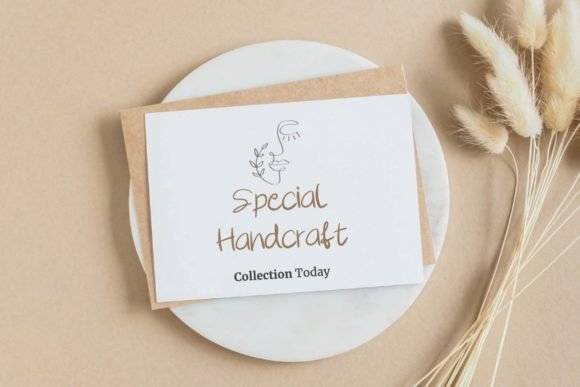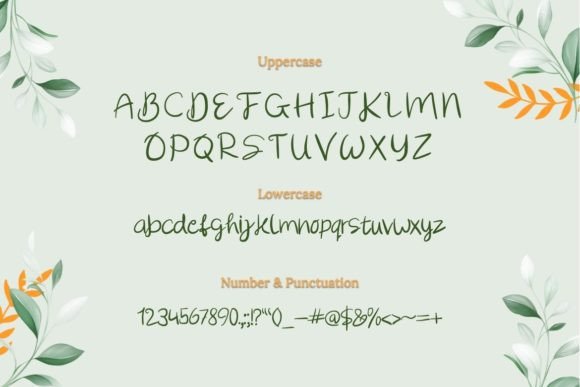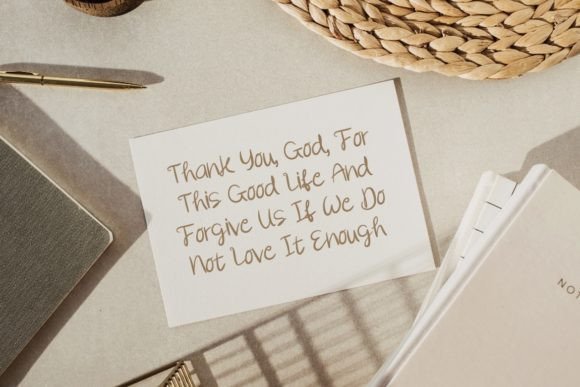
Happeiday Font: Elevate Your Designs with a Touch of Free-Spirited Energy
In the world of typography, fonts play a crucial role in conveying the tone and personality of a brand or design. If you’re looking for a font that exudes a sense of natural beauty, creativity, and free-spirited energy, look no further than the Happeiday Font. This attractive and eye-catching handwritten font is perfect for designers and crafters who want to add a unique touch to their work.
The Characteristics of Happeiday Font
Happeiday Font is a handwritten font that boasts flowing strokes and unique letterforms. Its natural, effortless look conveys a sense of spontaneity and creativity, making it perfect for designs that require a personal touch. The font’s free-spirited energy is infectious, and it’s sure to catch the eye of your audience. Whether you’re creating logos, branding materials, or social media graphics, Happeiday Font is an excellent choice.
Why Choose Happeiday Font?
So, what sets Happeiday Font apart from other fonts? Here are a few reasons why designers and crafters love this font:
- Unique and eye-catching: Happeiday Font’s distinctive letterforms and flowing strokes make it stand out from more traditional fonts.
- Perfect for creative projects: Whether you’re working on a logo, branding materials, or social media graphics, Happeiday Font adds a touch of creativity and whimsy to your designs.
- Easy to read: Despite its unique look, Happeiday Font is easy to read, making it perfect for designs that require a clear message.
- Versatile: Happeiday Font can be used for a wide range of projects, from digital designs to print materials.
How to Use Happeiday Font in Your Designs
Now that you’re convinced of the awesomeness of Happeiday Font, let’s talk about how to use it in your designs. Here are a few tips:
- Pair it with neutral colors: Happeiday Font looks stunning when paired with neutral colors like white, black, or gray. This allows the font to take center stage and showcase its unique characteristics.
- Experiment with sizes: Happeiday Font looks great in various sizes, from large headings to smaller body text. Experiment with different sizes to find the perfect fit for your design.
- Add some texture: To give your design an extra boost of creativity, consider adding some texture to your Happeiday Font. This could be a subtle background texture or a more prominent overlay.
Who Can Benefit from Happeiday Font?
Happeiday Font is perfect for a wide range of designers and crafters, including:
- Graphic designers: Whether you’re working on logos, branding materials, or social media graphics, Happeiday Font is an excellent choice.
- Crafters: If you’re creating handmade products like cards, gift tags, or scrapbook pages, Happeiday Font adds a personal touch to your work.
- Small business owners: If you’re looking for a unique font to represent your brand, Happeiday Font is a great option.
In conclusion, Happeiday Font is an attractive and eye-catching handwritten font that adds a touch of free-spirited energy to any design. Its flowing strokes and unique letterforms convey a sense of natural beauty and creativity, making it perfect for designers and crafters who want to create stunning work. Whether you’re creating logos, branding materials, or social media graphics, Happeiday Font is sure to catch the eye of your audience.